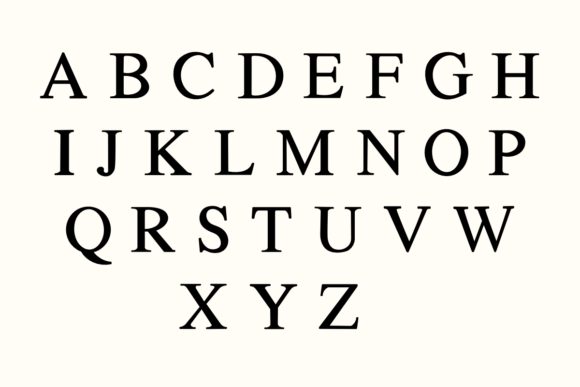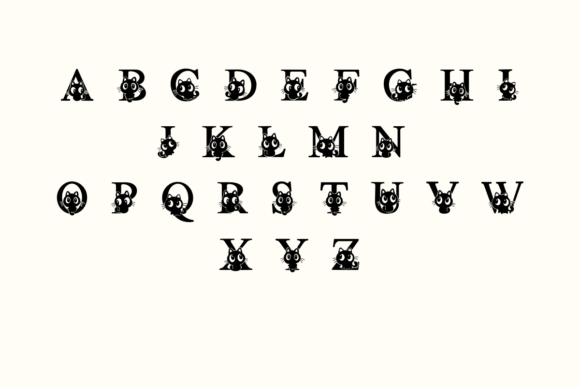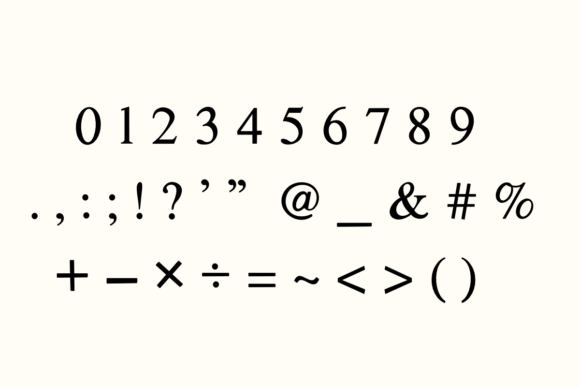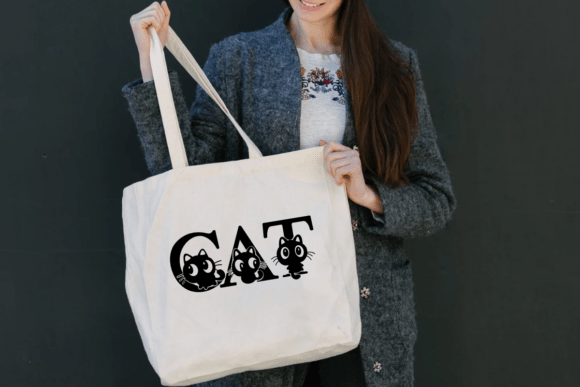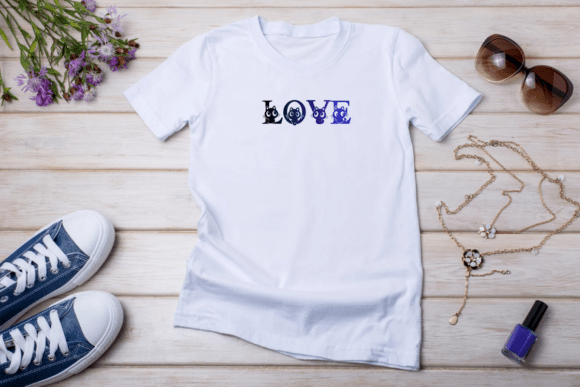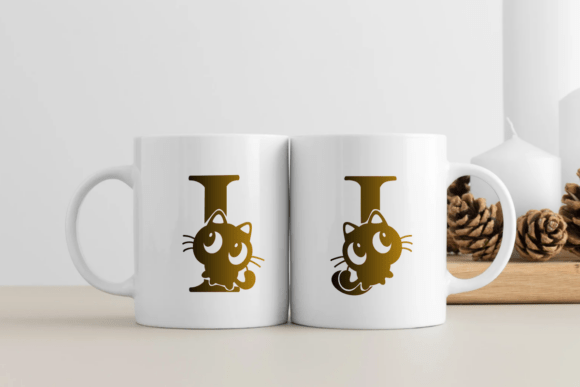
Meet the Font that’s Purr-fectly Adorable: Black Cute Cat Font
Have you ever been working on a design project and suddenly, a spark of creativity hits you? Maybe it’s a burst of inspiration from a playful kitten, or perhaps it’s the thrill of combining seemingly unrelated elements in a harmonious way. Whatever it is, it’s moments like these that make design so magical. For me, that spark came when I discovered the enchanting Black Cute Cat Font, where whimsical black cat illustrations seamlessly blend with elegant typography.
This charming font is more than just a novelty – it’s a valuable tool for designers looking to add a touch of personality to their work. Whether you’re creating a spooky Halloween design, a whimsical kids’ illustration, or a heartfelt greeting card, Black Cute Cat Font is sure to bring a smile to your audience’s faces.
Black Cute Cat Font Key Features
- Font Family: Black Cute Cat Font, a unique and playful font designed to resemble a cute cat’s face.
- Unique Characteristics: The font features a distinctive cat face design, complete with whiskers, eyes, and a cute nose, adding a touch of whimsy to any design.
Designer Review: Black Cute Cat Font
Overall, I’d say the Black Cute Cat Font has some charming qualities that might make it appealing to certain designers or brands.
- ✨ The font’s playful and whimsical vibe is perfect for cat lovers or children’s products.
- ✨ The bold lines and clear shapes make it relatively easy to read, even at smaller sizes.
- ✨ The font’s versatility allows it to be used for a range of applications, from titles to body text.
- ⚠️ The font’s aesthetic is quite one-dimensional, making it less suitable for complex or professional designs.
- ⚠️ The font’s limited character set and lack of language support might make it impractical for multilingual designs.
- ⚠️ The font’s overall design feels a bit childish, which might not appeal to more mature audiences.
Overall, the Black Cute Cat Font is a fun, lighthearted choice for designers looking to add a touch of playfulness to their projects. However, its limitations should be carefully considered before using it for more complex or professional designs.
Black Cute Cat Font is ideal for designs that require a playful and whimsical touch. Use it for:
- Kids’ party invitations and decorations.
- Food and beverage labels.
- Social media graphics and posts.
- Gift tags and wrapping paper.
For the best results, use the font in combination with bright colors and playful graphics.